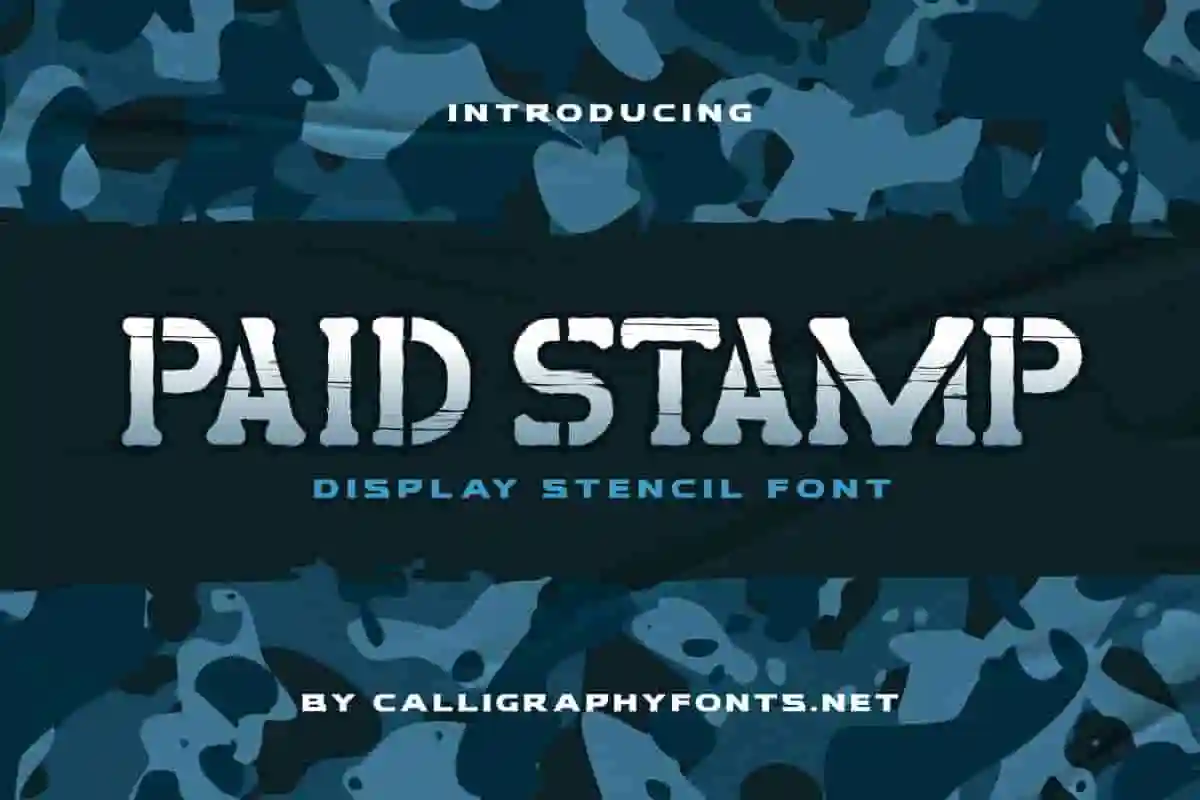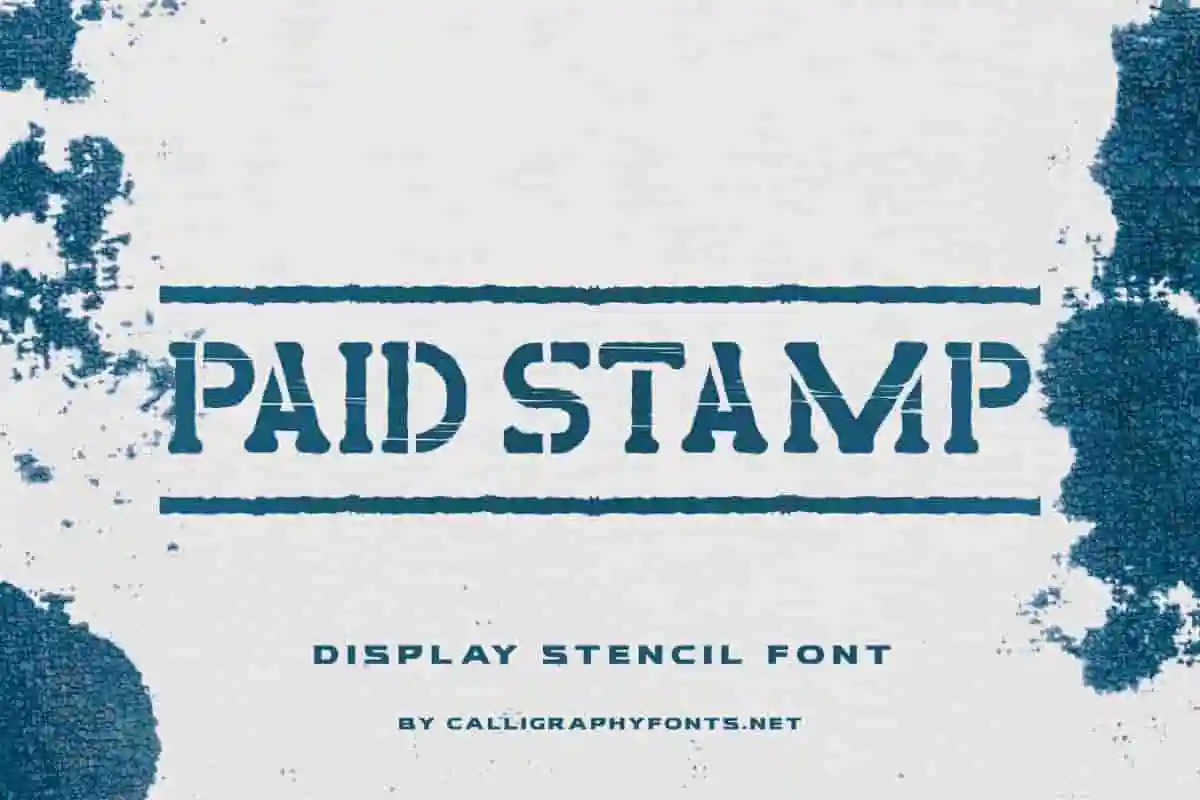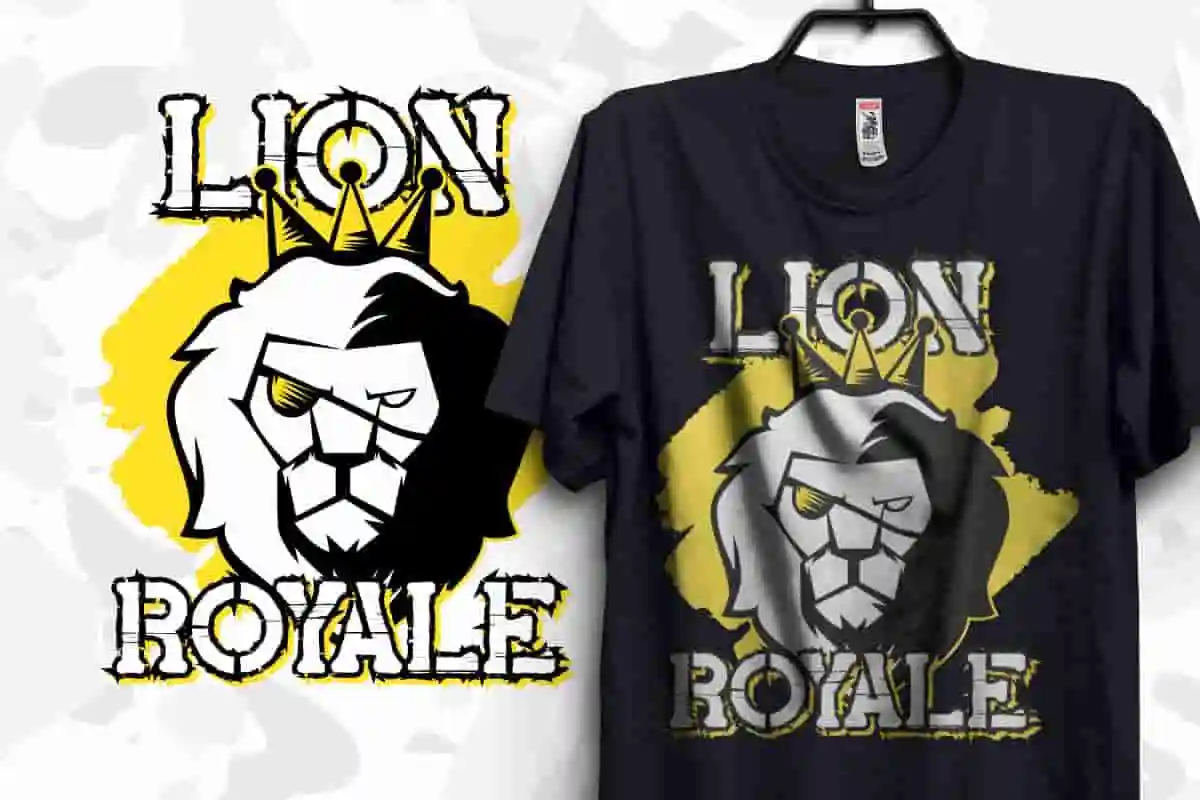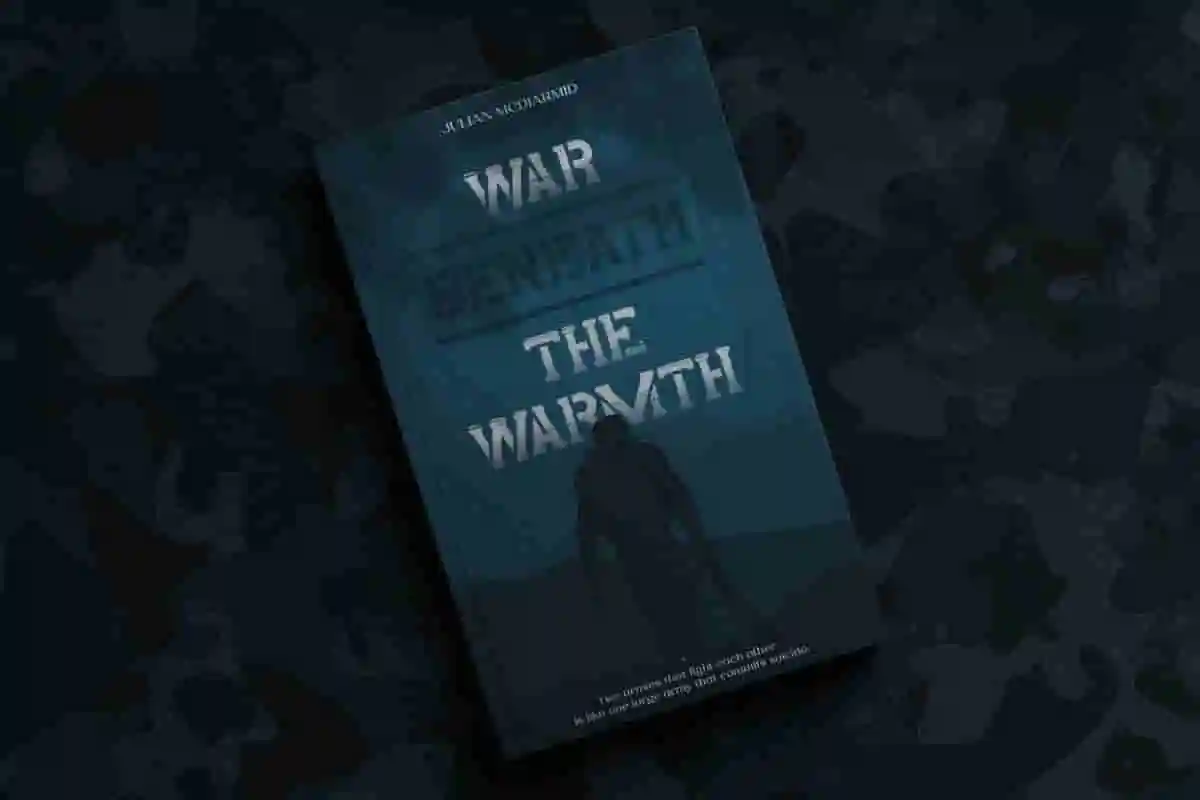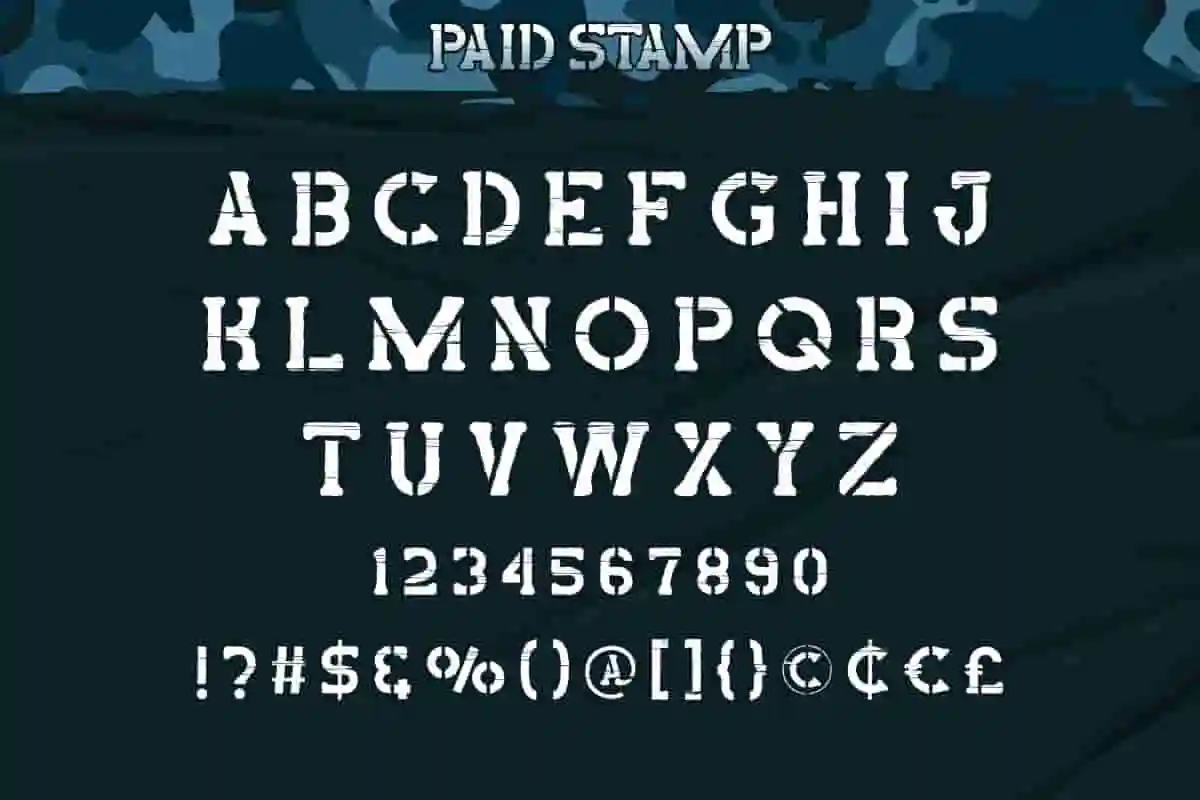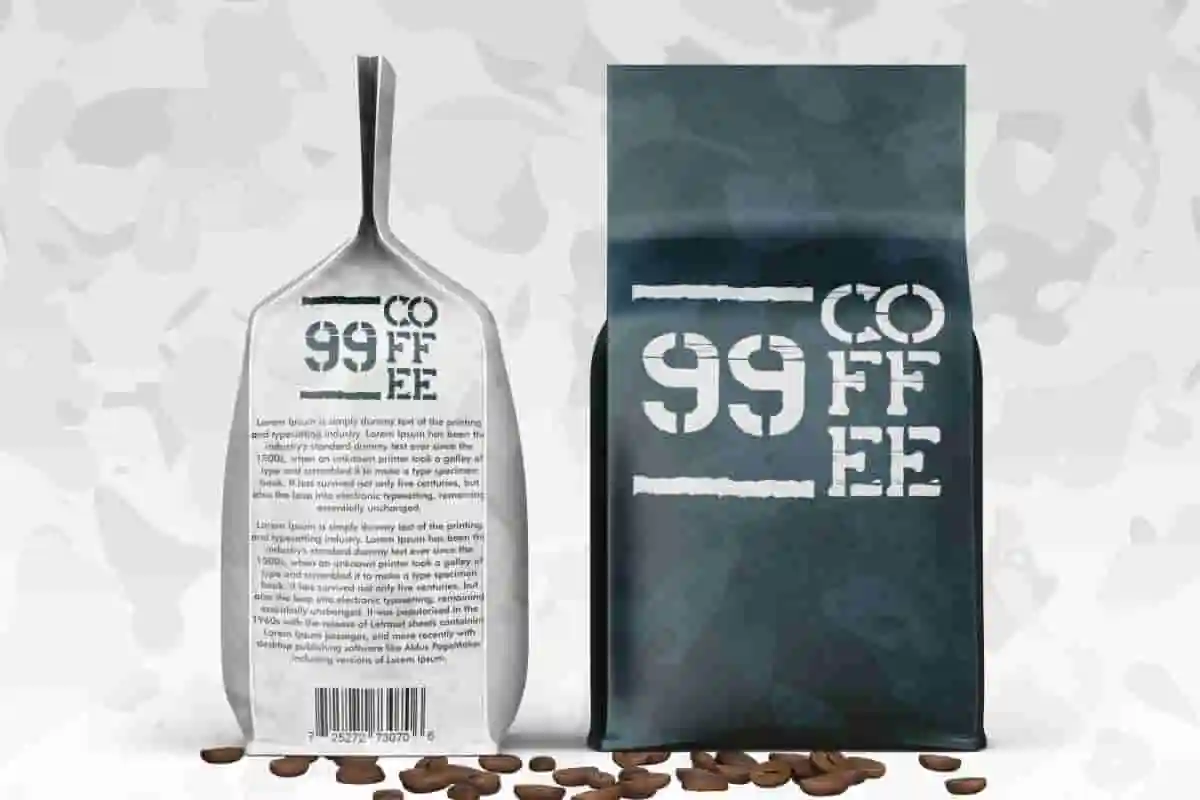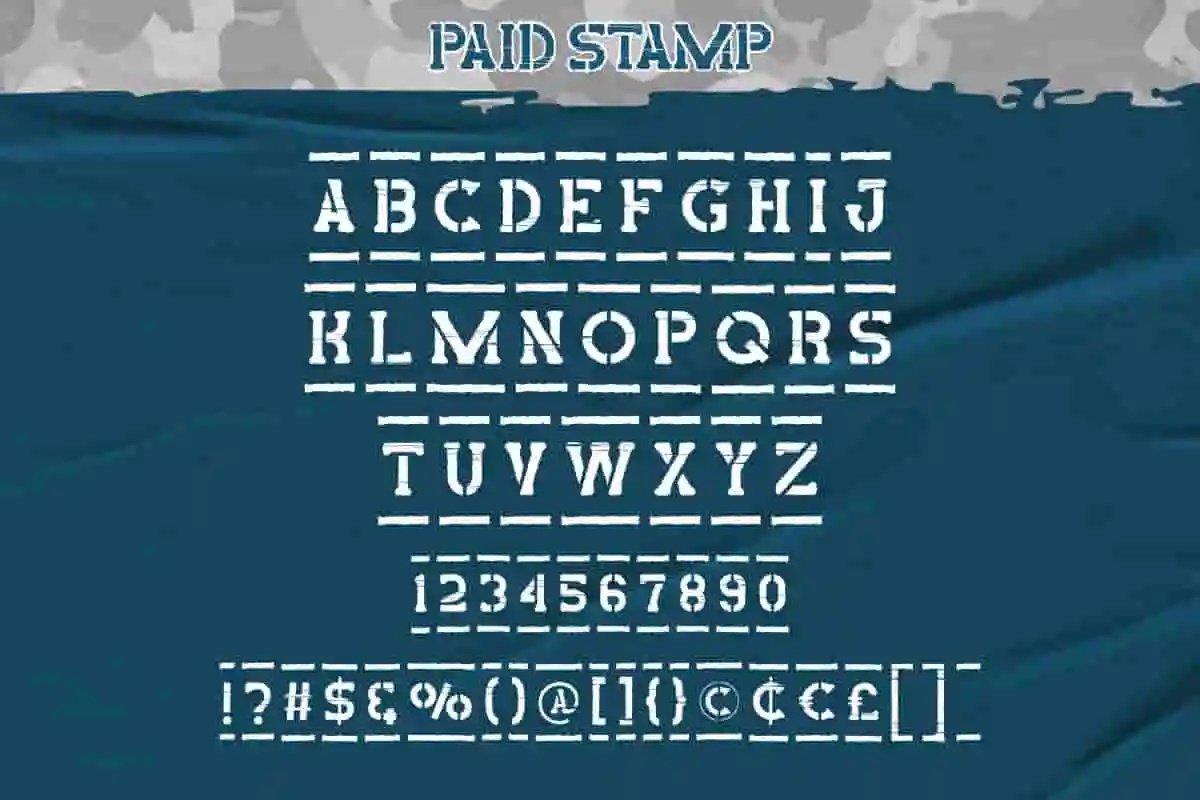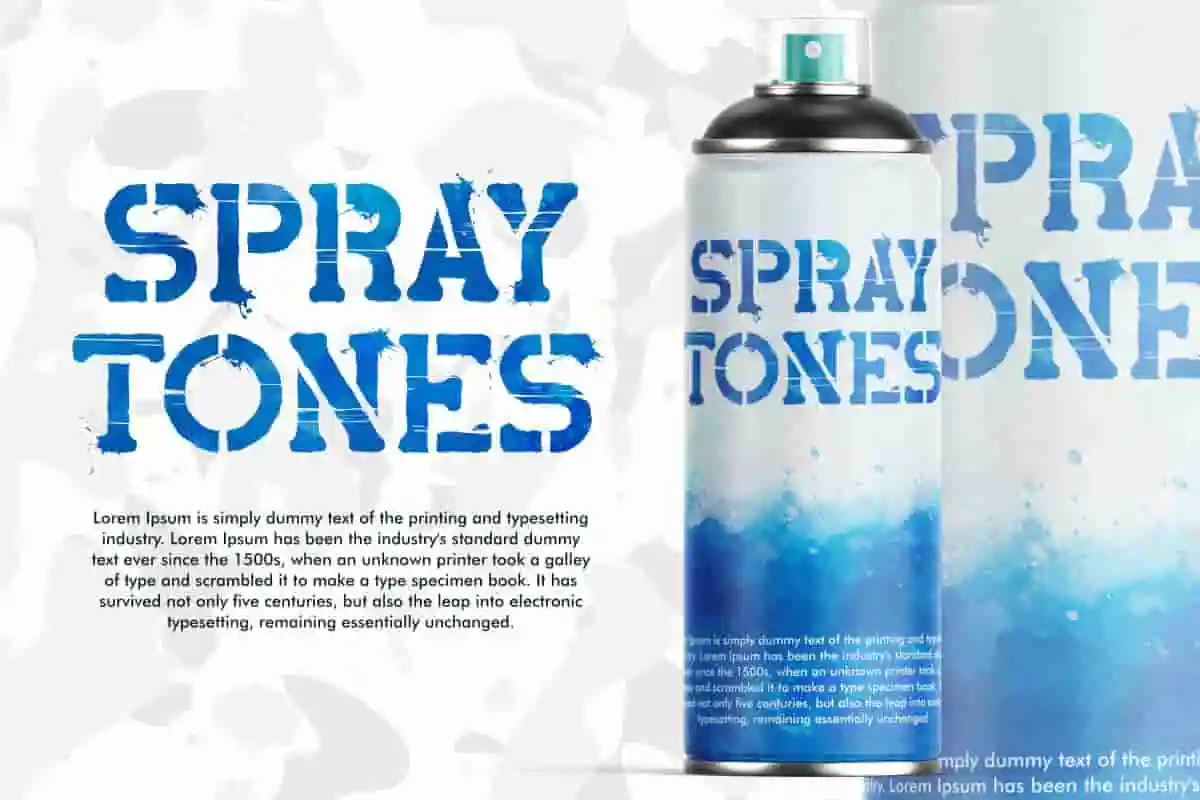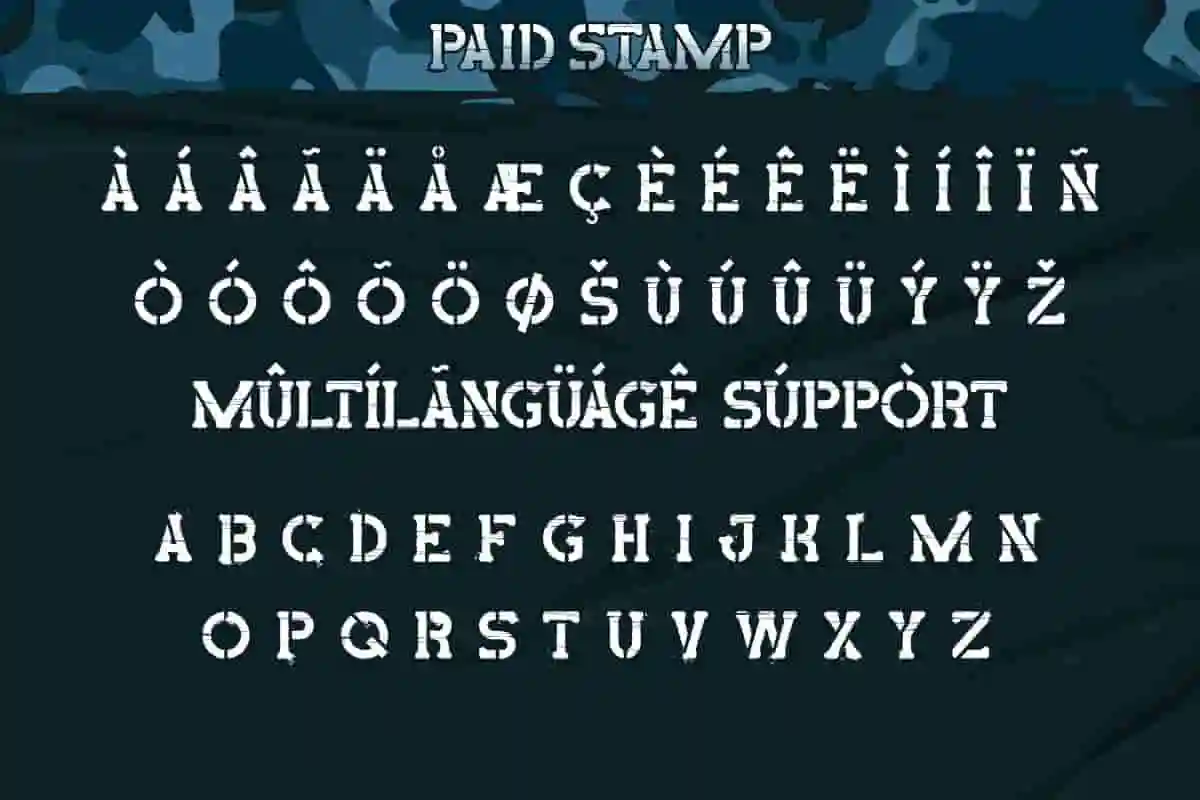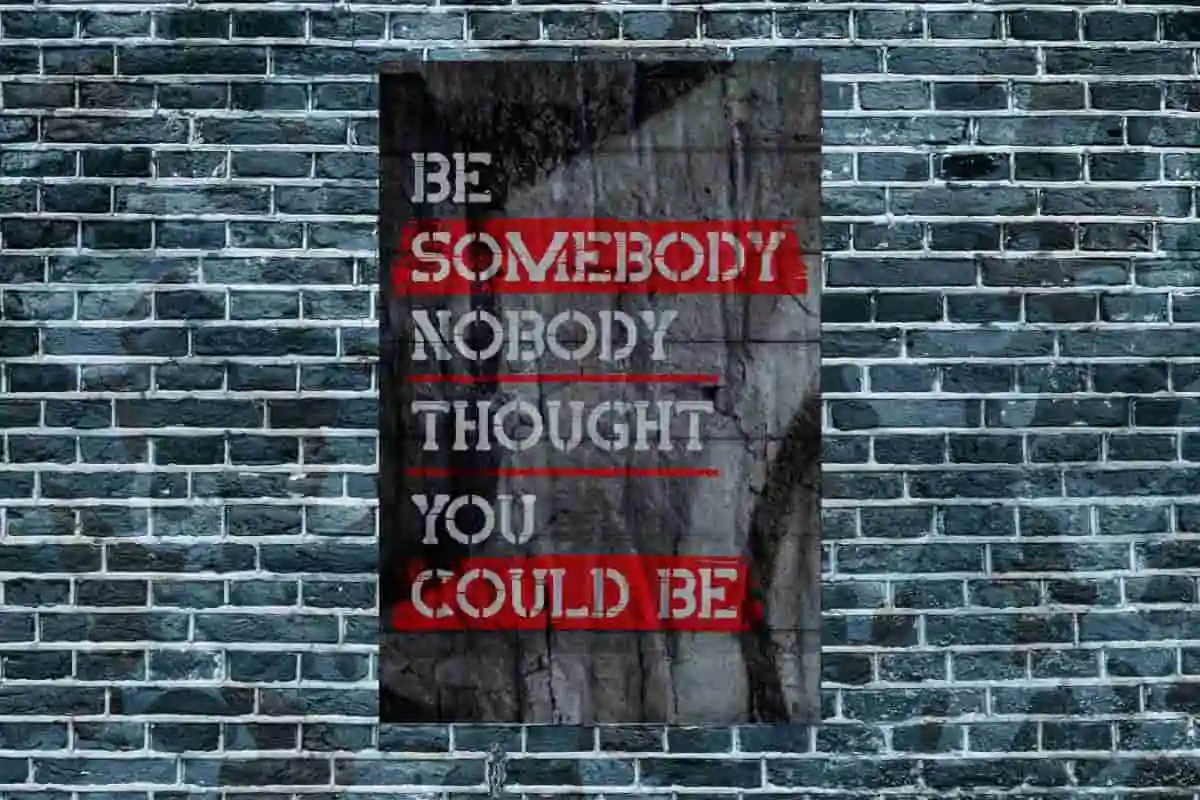
Paid Stamp Display Font
Paid Stamp Font is a stencil army font. This stamped font is a unique style by combining it with a stencil look, making it looks awesome. Great for games, lettering, logos, products packaging, shirt, signage, stamp, title etc. Paid Stamp comes with brave and unique font with two styles, Regular and Display. The font will be awesome for many industries including : café, fashion, movie, games and many more!
Make your designs stand out with Paid Stamp Display Font, a bold and textured typeface inspired by the rugged charm of vintage rubber stamps. With its distressed edges and authentic stamp effect, this font brings a touch of nostalgia and industrial style to any project.
With Paid Stamp Display Font, you’re not just adding text—you’re adding character, history, and personality to your designs. Its authentic, rugged style will give your work a distinctive edge that commands attention.